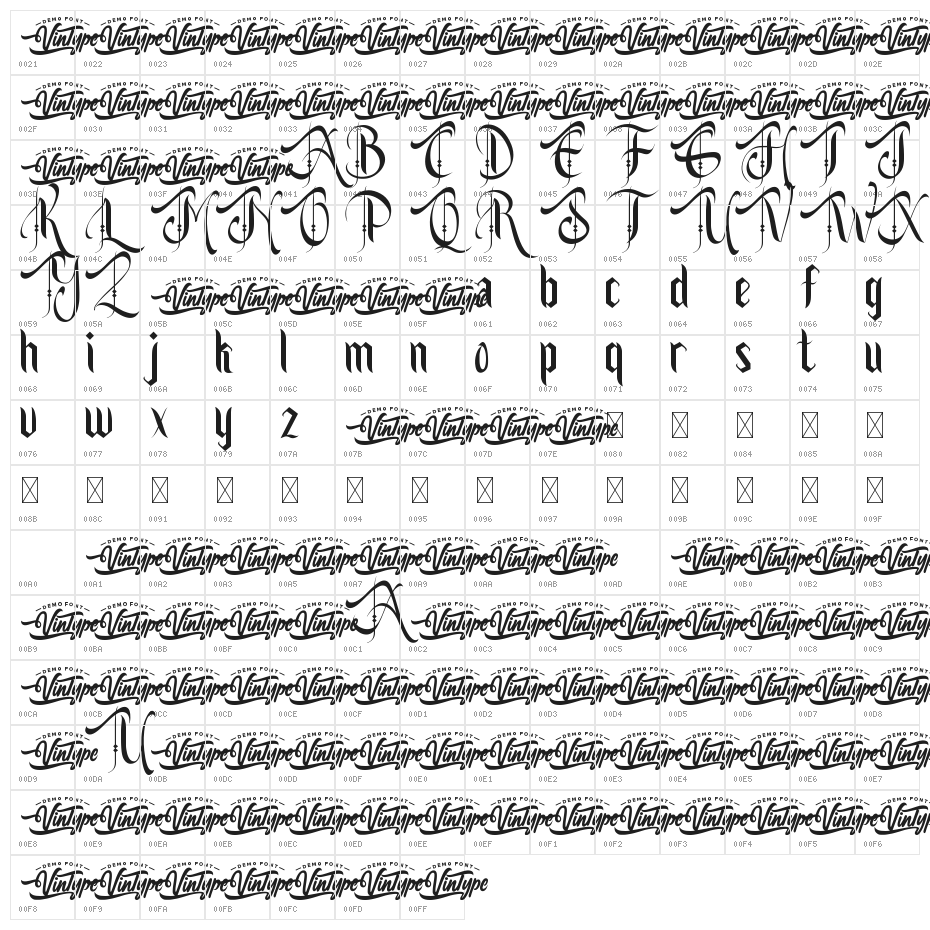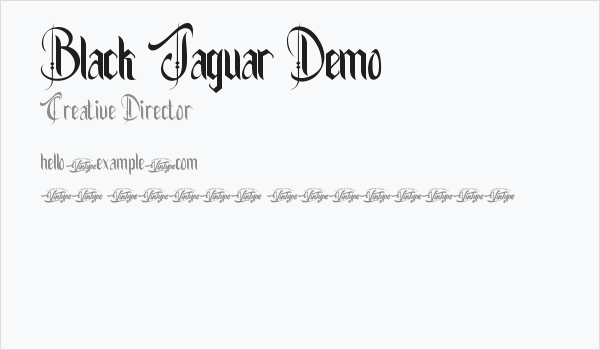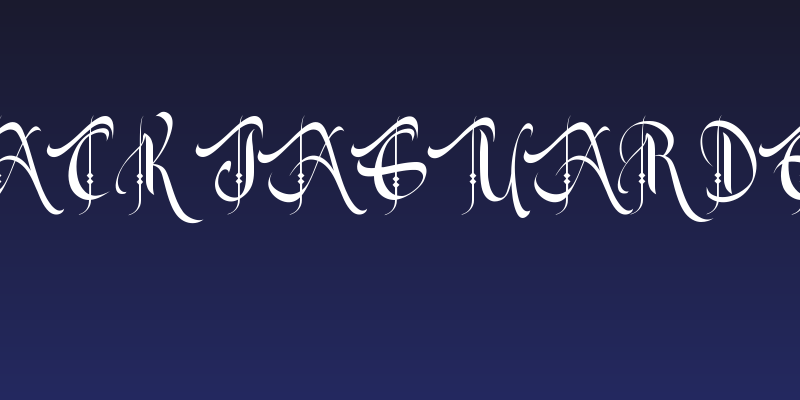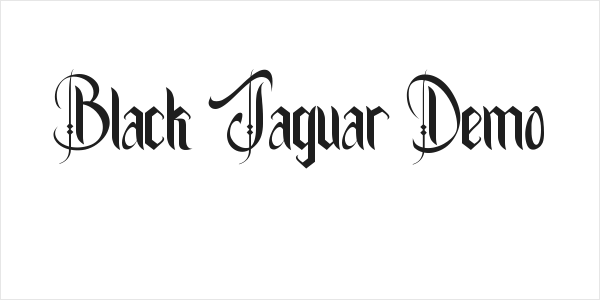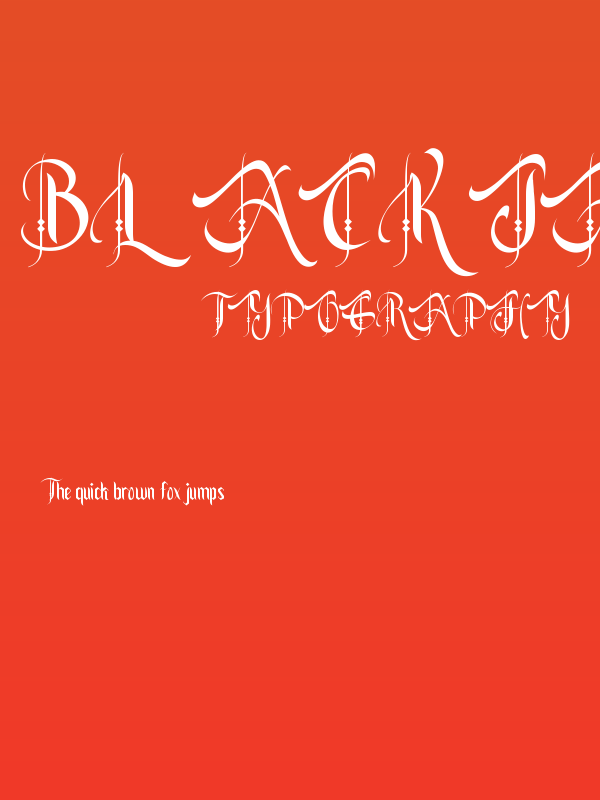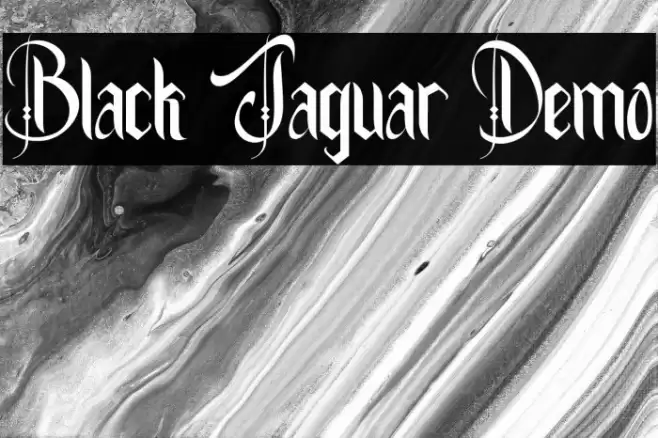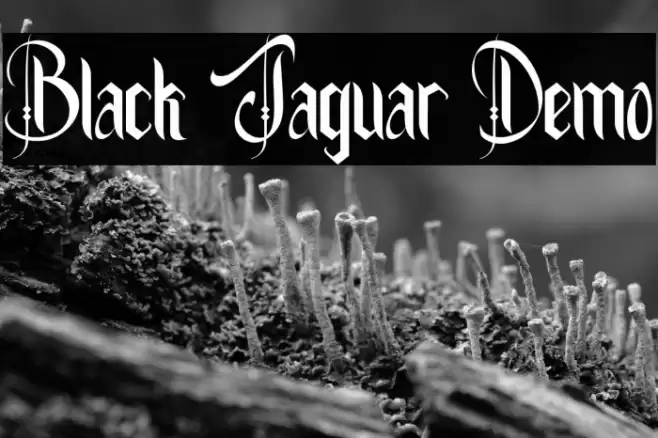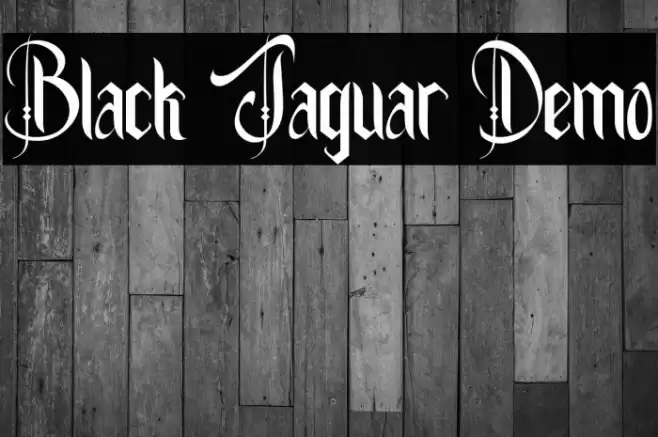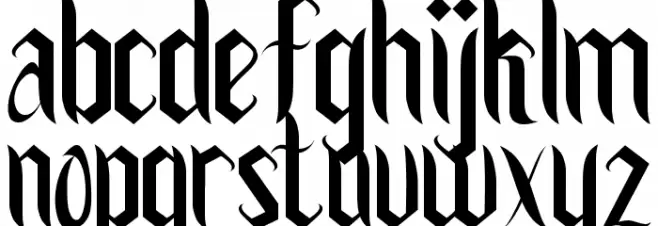
Black Jaguar Demo Font
Black Jaguar Demo Description
This font exhibits a striking and intricate design, characterized by its elaborate and decorative style. The uppercase letters feature ornate flourishes and sharp, angular lines reminiscent of traditional calligraphy, while the lowercase letters maintain a bold, structured appearance with a gothic influence. The numbers and special characters follow suit, offering a cohesive and visually impactful set. This font's unique style makes it suitable for projects that require a dramatic and artistic touch.
| Proposed Projects | Ideal for tattoo designs, gothic-themed posters, album covers, and branding that requires a bold, artistic flair. |